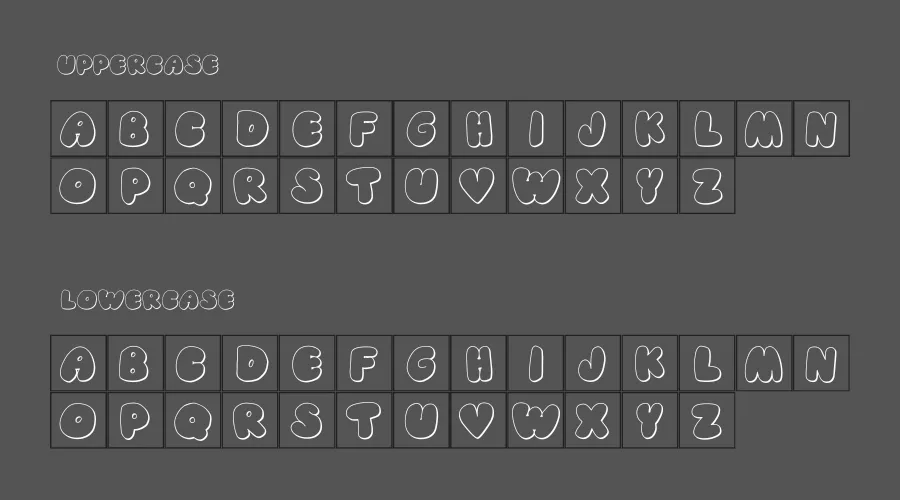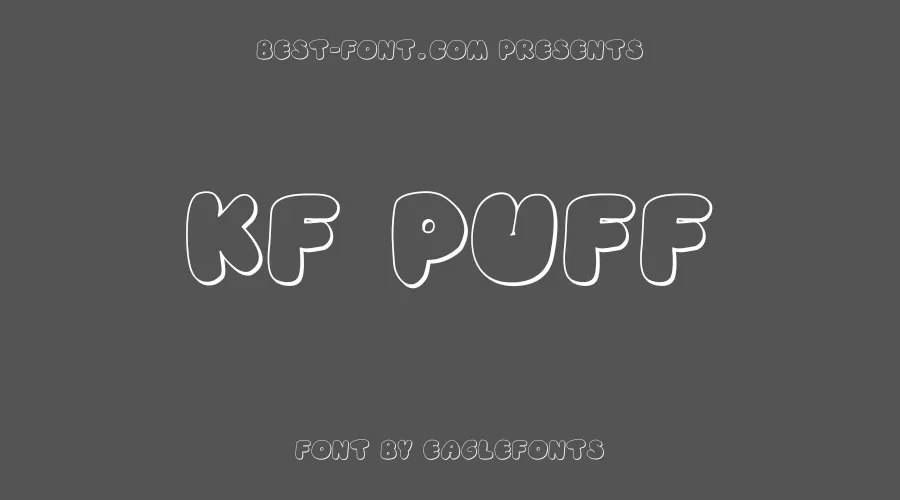
About KF Puff Font
Eagle Fonts created the amazing KF Puff Font it belongs to a fancy text style. It has a highly appealing and surprising appearance that adds to the curiosity of your projects.
This font was used by many designers in simple projects, and they enjoyed tremendous success all around the world. They are well-known in the font industry and have produced a number of other well-known fonts.
It is available in several letter sizes, punctuation types, number digits, icon sizes, and symbol sizes. There is one standard style and numerous relevant weights available for this iconic typeface.